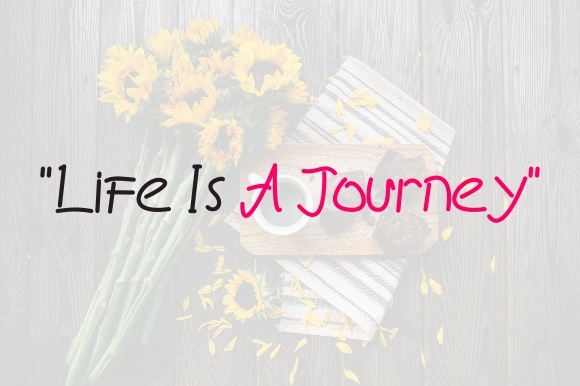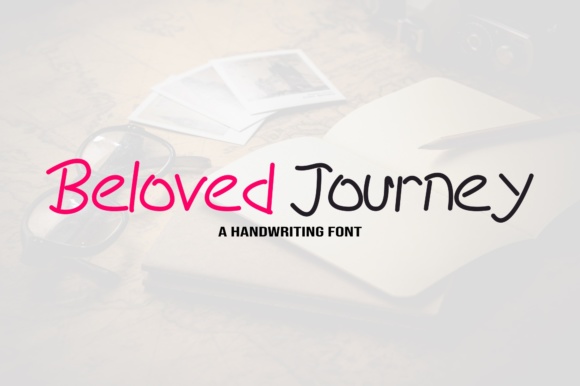
The Beloved Journey Font: A Handwriting Haven for Designers
I’ll never forget the design project that led me to fall in love with the Beloved Journey font. I was working on a branding campaign for a boutique travel company, and I needed a font that would capture the essence of adventure and freedom. After hours of scouring font libraries and trying out different options, I stumbled upon Beloved Journey – a beautiful handwriting font that instantly resonated with the project’s vibe.
As I began to work with the font, I realized that it was more than just a pretty face. Its elegant, cursive strokes and charming personality made it perfect for a wide range of design applications, from posters and quotes to branding and packaging. In this article, I’ll share my honest review of the Beloved Journey font, provide a practical guide on how to use it, and explore similar fonts that you might love.
- 💫 Unique and charming handwriting style that’s perfect for creative projects
- 🎨 Versatile and adaptable for various design applications, from digital to print
- 🌈 Beautifully crafted with attention to detail and a clear design vision
- ⚠️ Limited character set compared to some other fonts, which might limit its use for certain languages or special characters
- 🕰️ Can be a bit overused or repetitive if not balanced with other design elements
The Designer Inspiration Behind Beloved Journey
While the true story behind Beloved Journey remains a mystery, it’s easy to imagine that it was crafted by a designer with a passion for handwriting and lettering. Perhaps they drew inspiration from vintage typography, travel journals, and handwritten letters. Whatever the story, the end result is a font that’s both beautiful and functional.
| Author | Rvandtype |
| What type of projects is Beloved Journey best suited for? | Beloved Journey is a versatile font that’s suitable for a wide range of projects, including branding, posters, quotes, packaging, and more. |